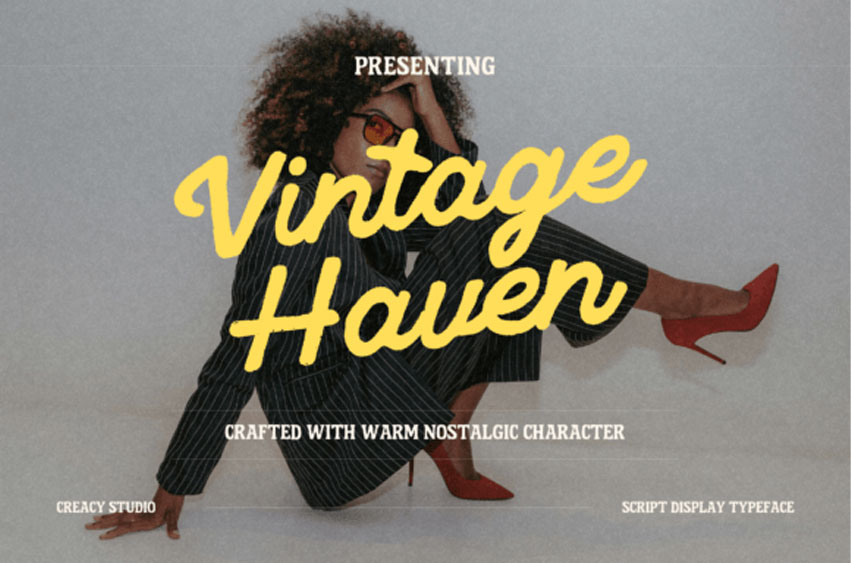
Vintage Haven Font is a tenderly curated script display font that weaves nostalgia and modernity in a remarkable fusion.
Thoughtfully created to infuse your visual narratives with warmth, uniqueness, and a dash of filmic allure, this typeface takes its inspiration from classic lifestyle photography, the allure of handwritten grace, and the timeless quintessence of retro editorial layouts.
Carefully combining subtle cursive motion with impactful textured strokes, Vintage Haven proves itself the perfect companion for eye-catching headlines and evocative brand narratives. Crafted with the discerning designer in mind, it breathes life into an array of artistic ventures such as fashion narratives, avant-garde lookbooks, custom packaging, cinematic posters, on-point social media content, and distinguished brand identities.
With your Vintage Haven script, you gain access to a full set of uppercase and lowercase characters, along with numerals and punctuation. Plus, it provides broad multilingual support, ensuring your messages resonate in any locale. Its flawless cursive flow harmonizes with a uniform retro aesthetic, and the natural textured finish enhances that much-desired, authentic, nostalgic allure.
Ideal for epicurean editorial titles, lifestyle branding, glamorous fashion promotions, cinematic visuals, and a suite of other creative applications, Vintage Haven offers authentic letterforms, unique nostalgic script style, and an authentic textured finish. Engineered for optimal performance in both print and digital landscapes, its universal linguistic support takes your storytelling to new heights.